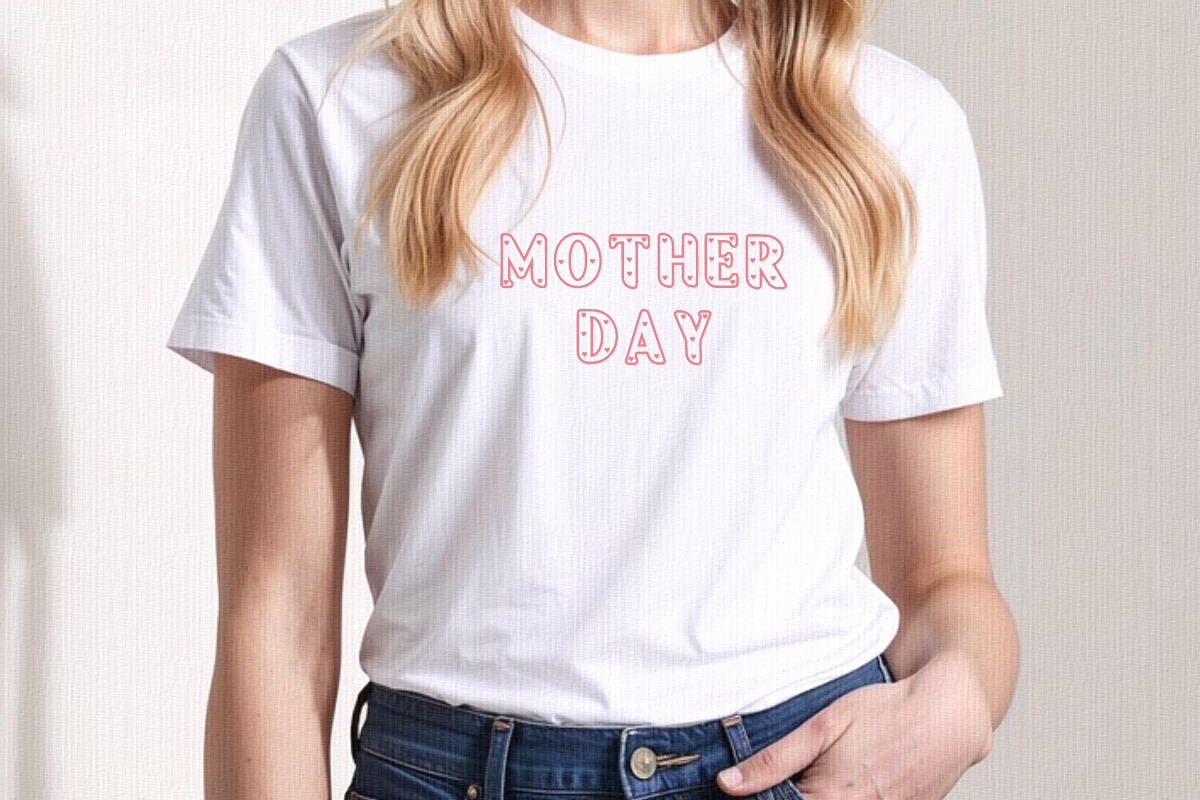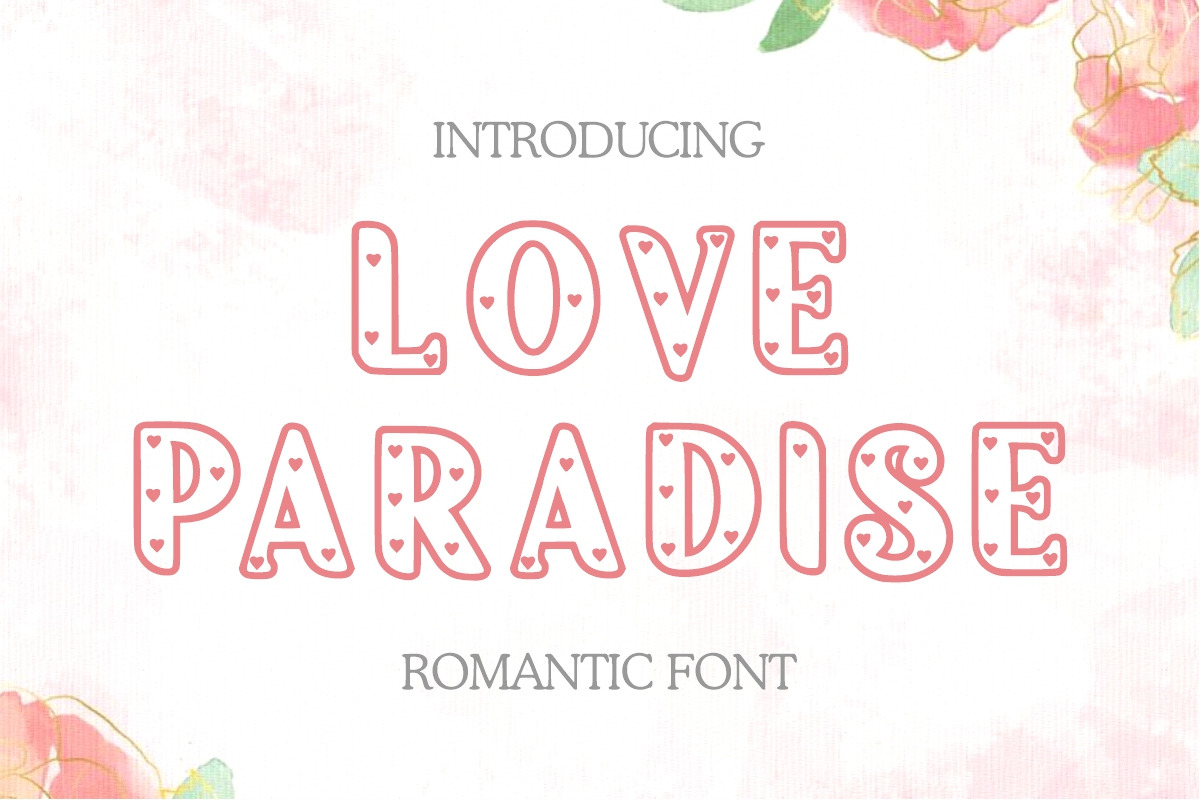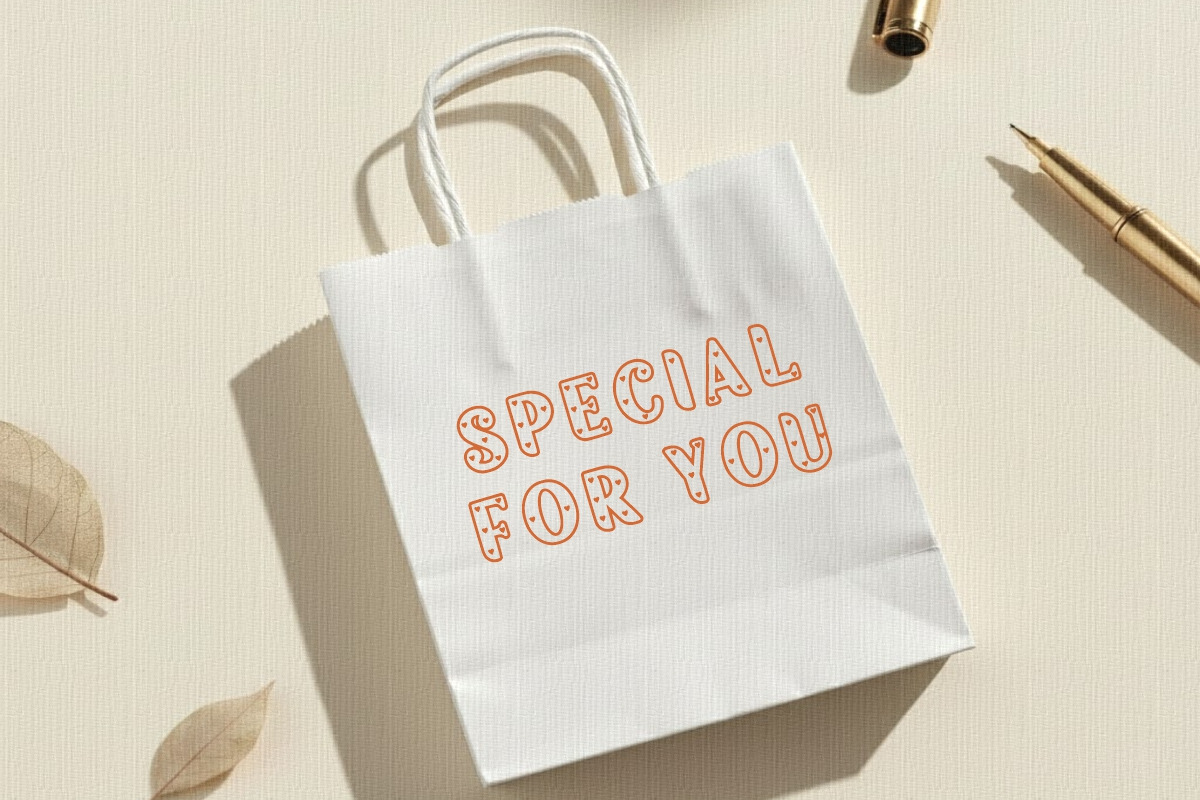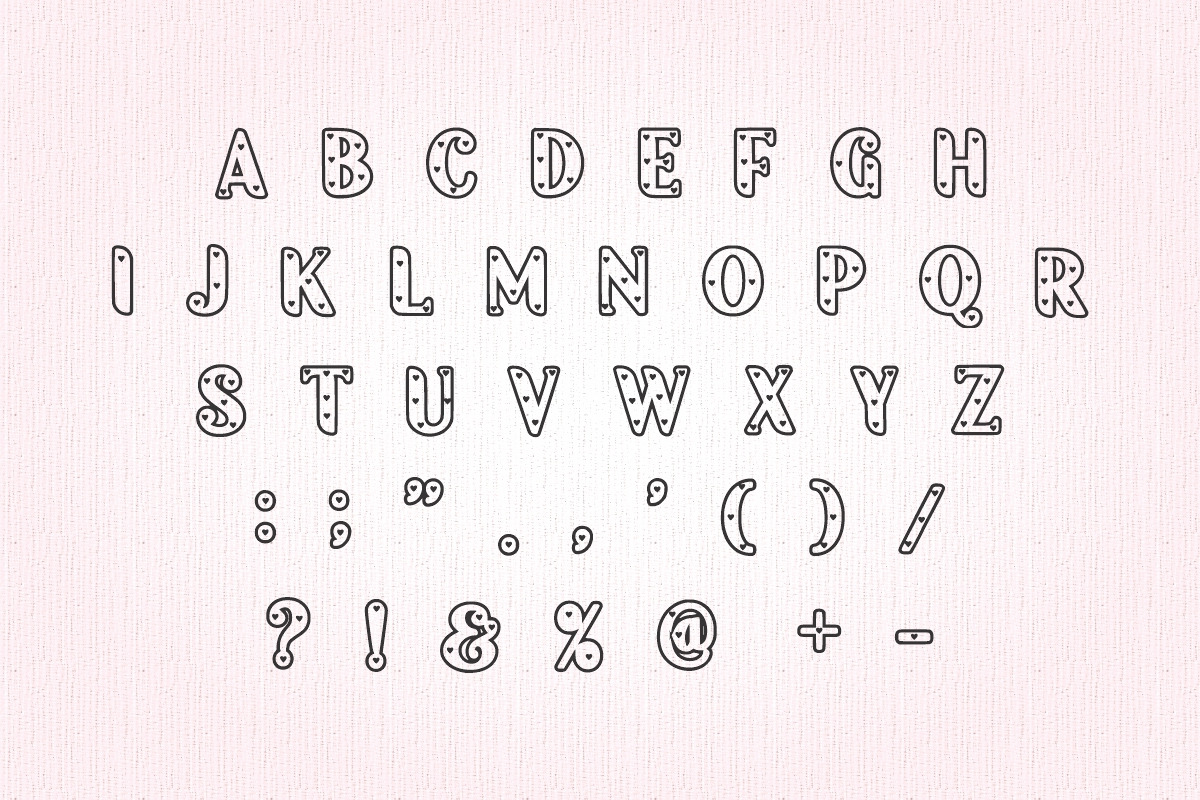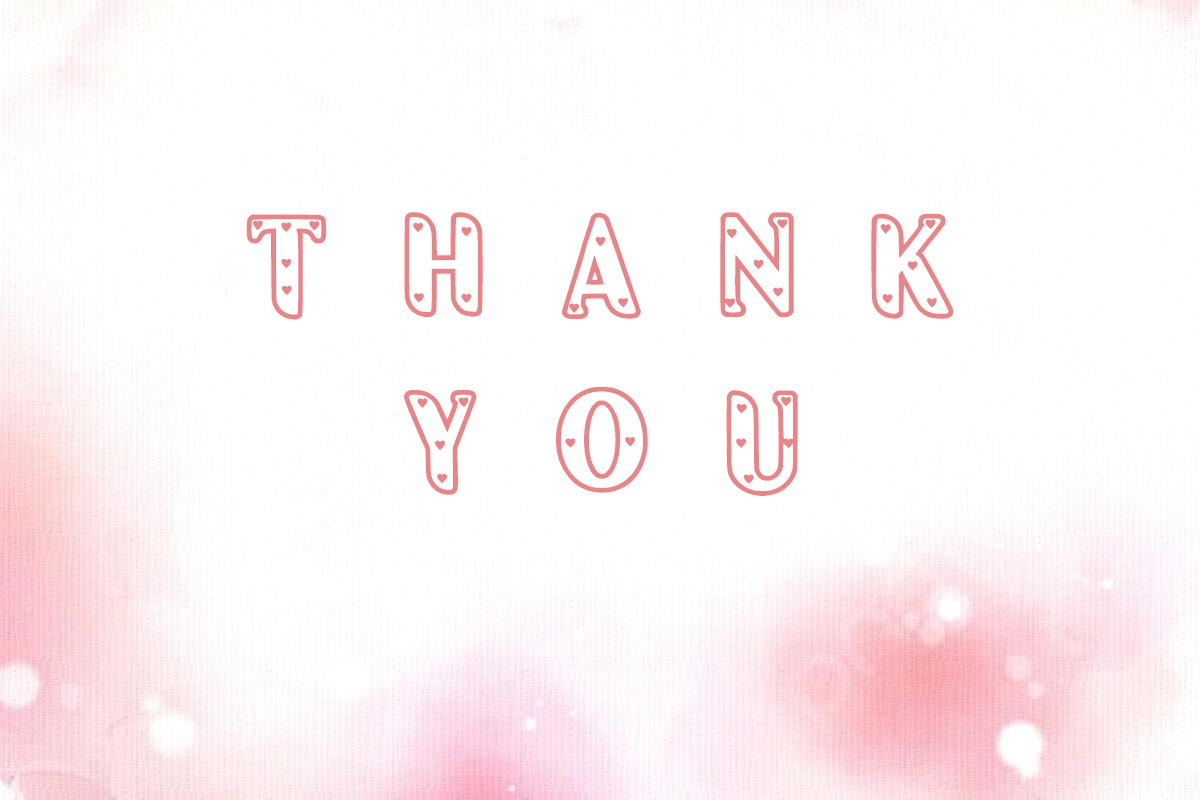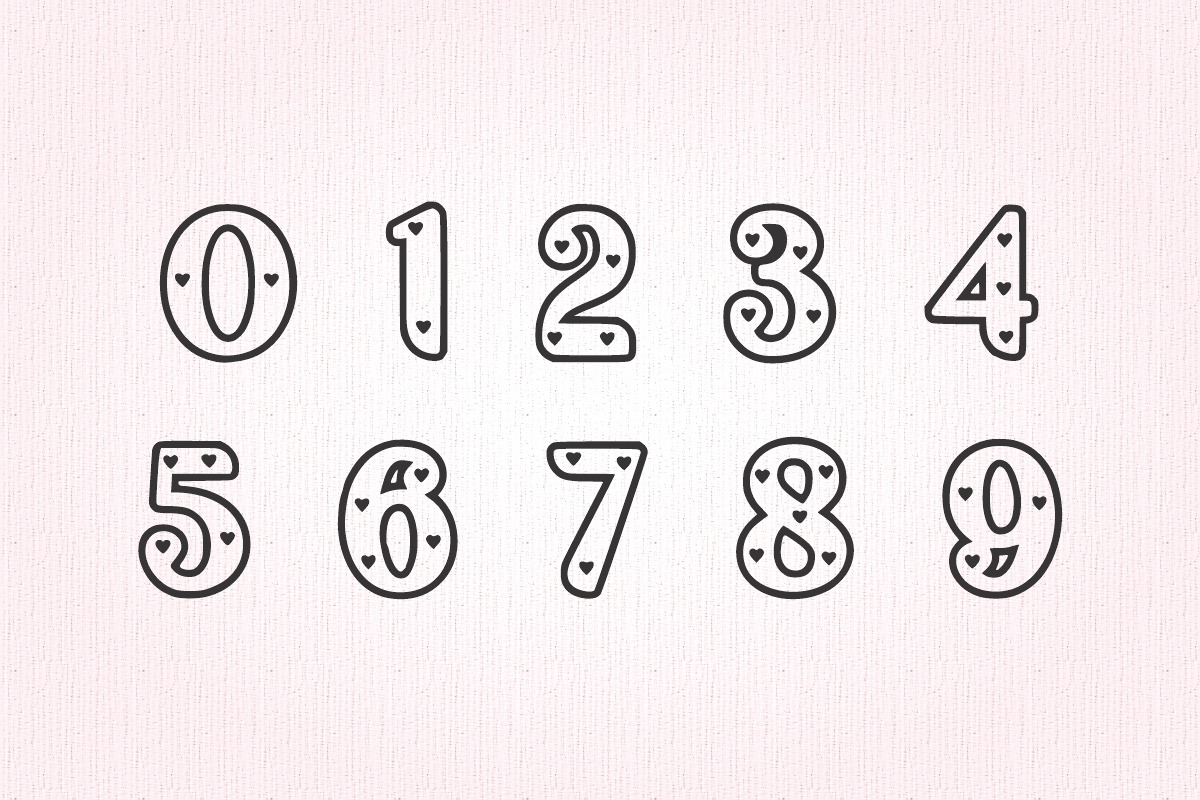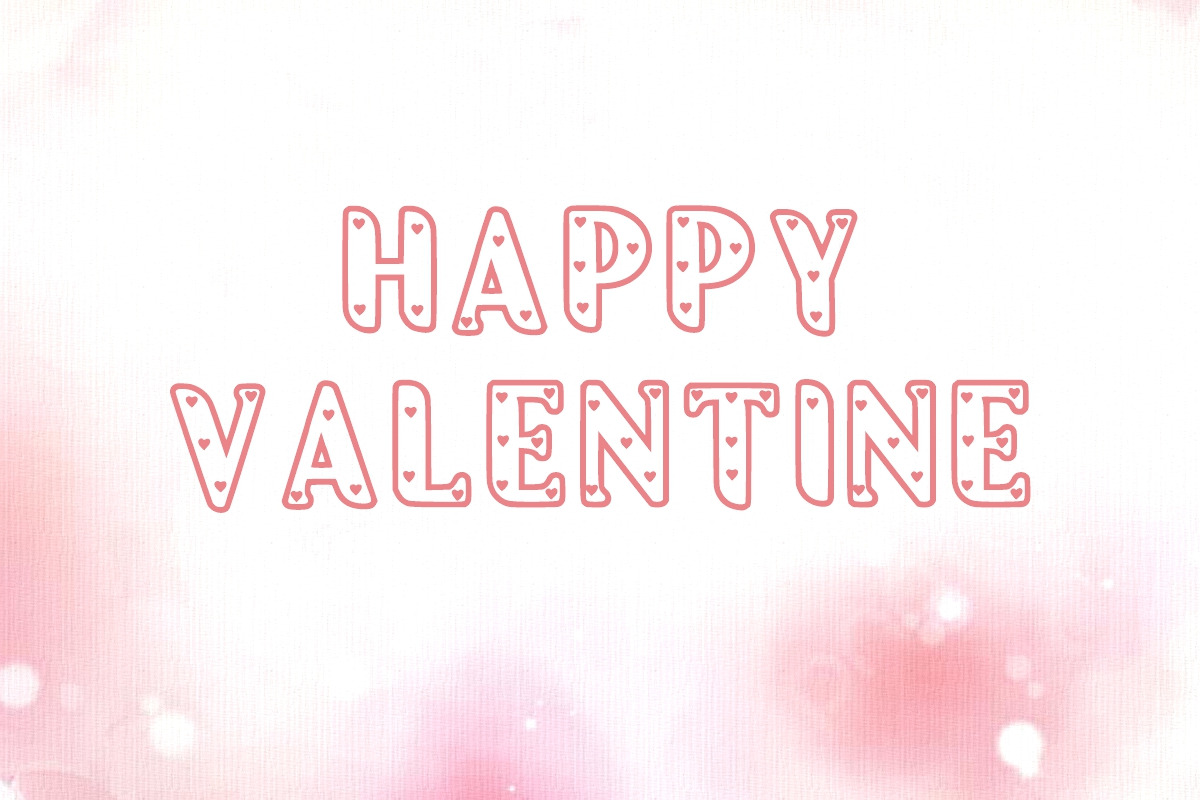
Love Paradise font
Celebrate the art of romance with Love Paradise, a charmingly quirky display font designed for moments of sweetness.
Each character is delicately adorned with tiny, hand-placed hearts, creating a whimsical and “lovey-dovey” effect.
Perfectly suited for Valentine’s Day, wedding invitations, romantic branding, and heartfelt social media quotes, Love Paradise adds a touch of personality and warmth to your creative work. It's more than just a font; it’s a love letter to your design.